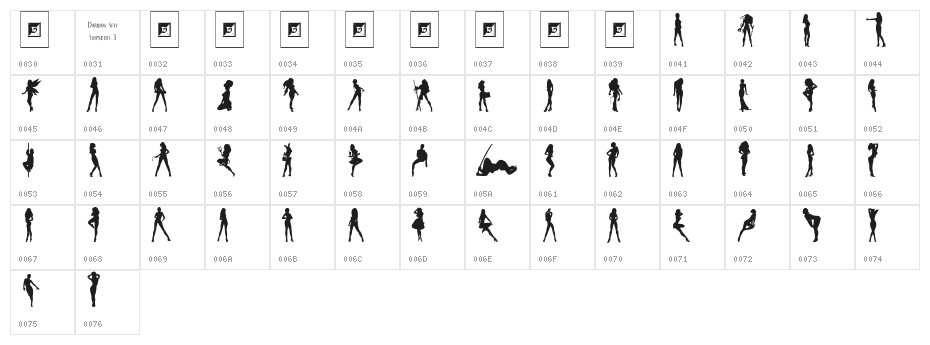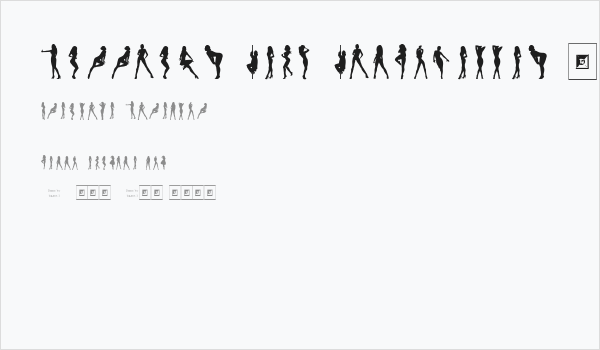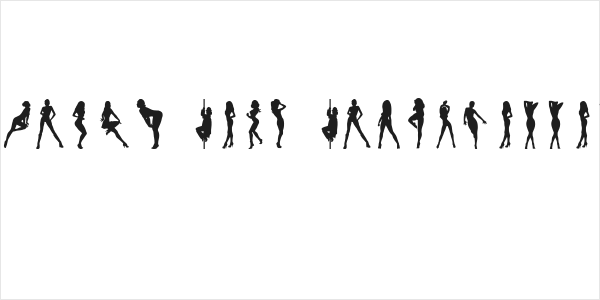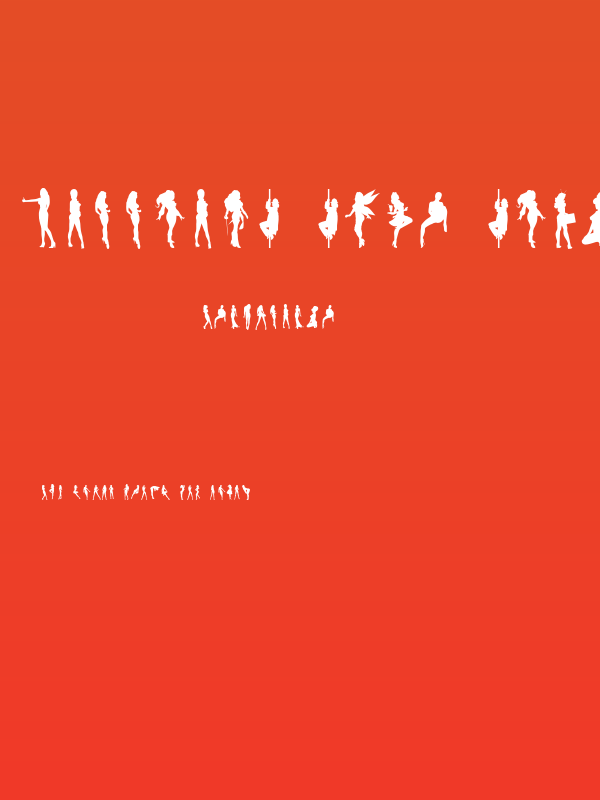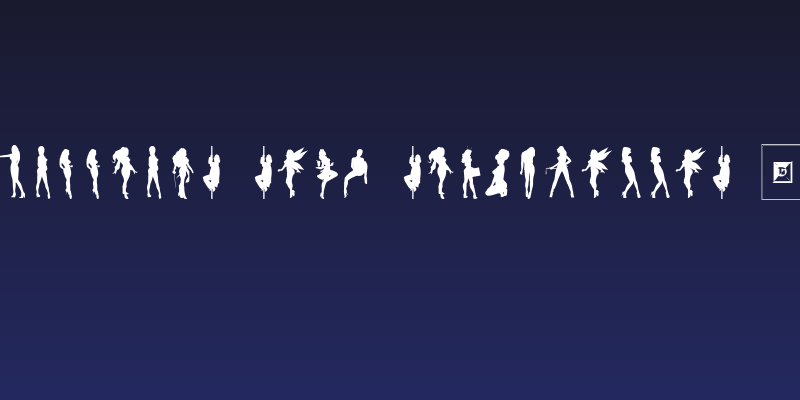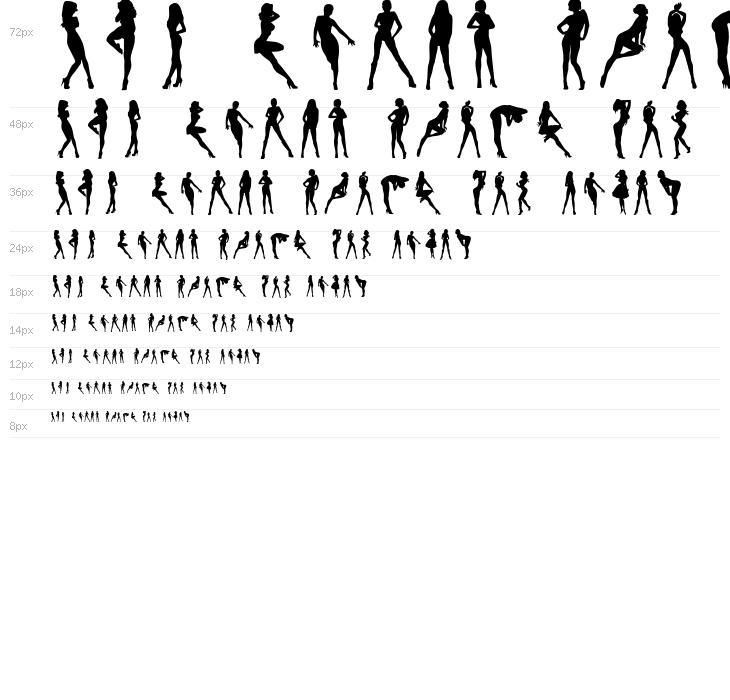
Darrians Sexy Silhouettes 3 Font
Darrians Sexy Silhouettes 3 Description
This is a decorative set of vector silhouettes depicting various female poses, each rendered in solid black with no interior detail. The figures are stylized and expressive, intended for visual impact rather than text communication.
| Use Case | Decorative graphics, visual accents, themed artwork. |
| Proposed Projects | Posters, party flyers, event invitations, themed graphics, digital scrapbooking, decorative design elements. |